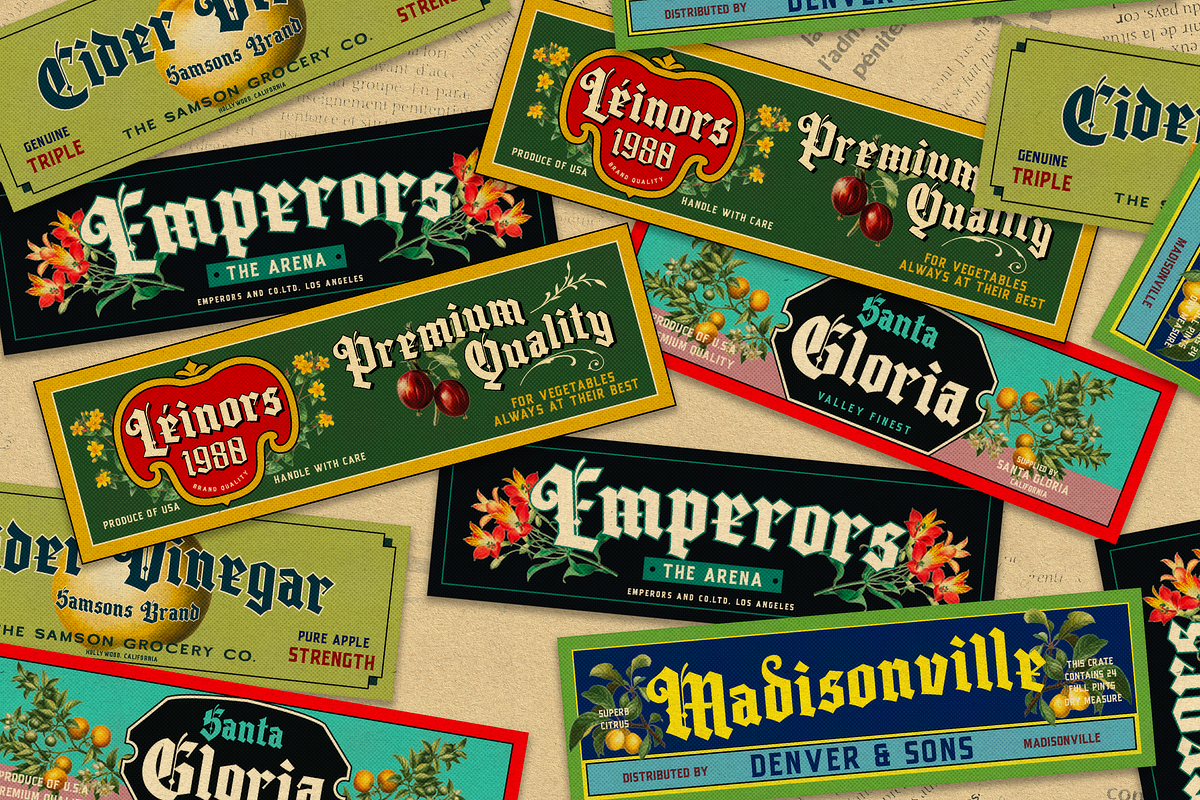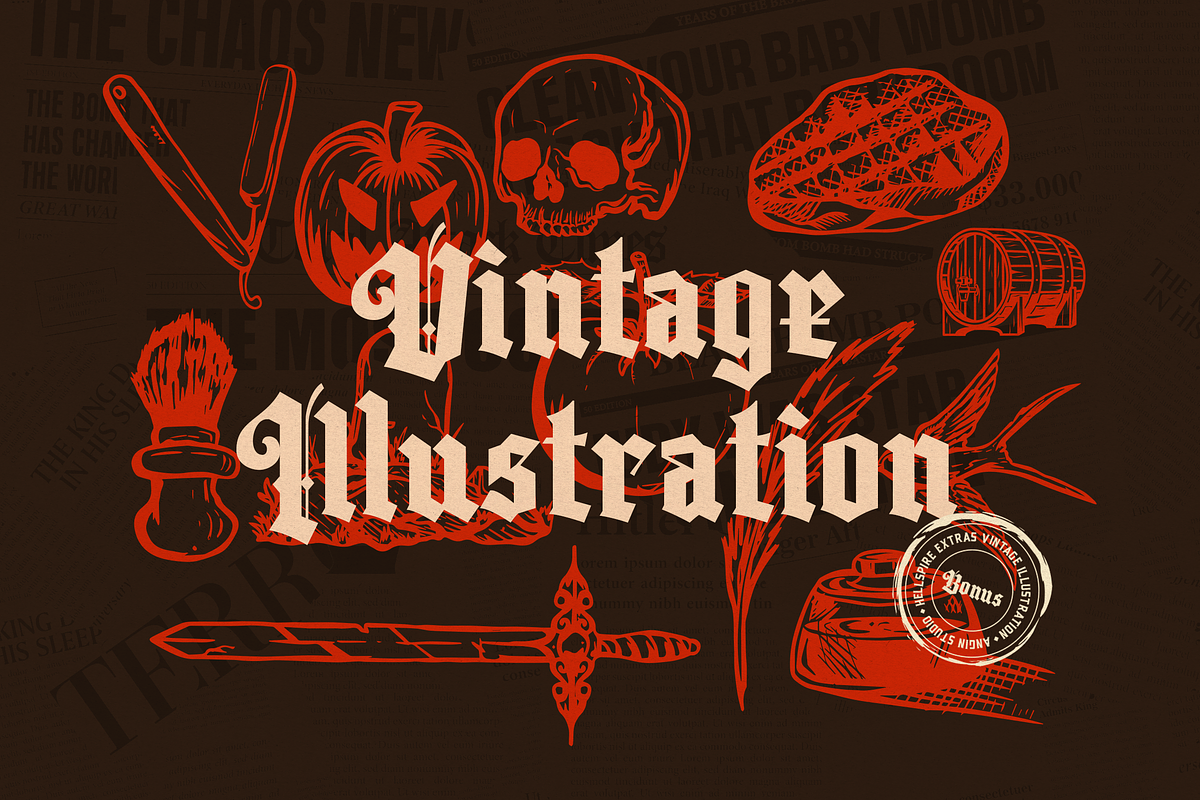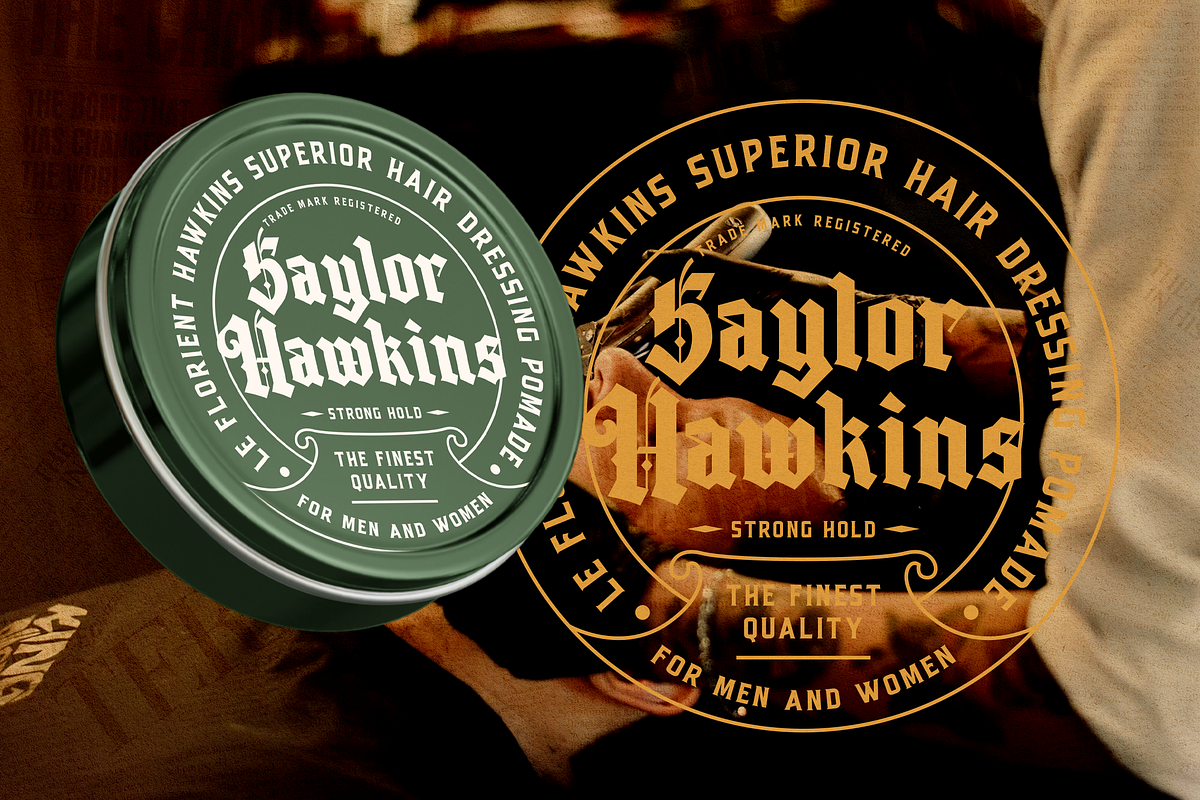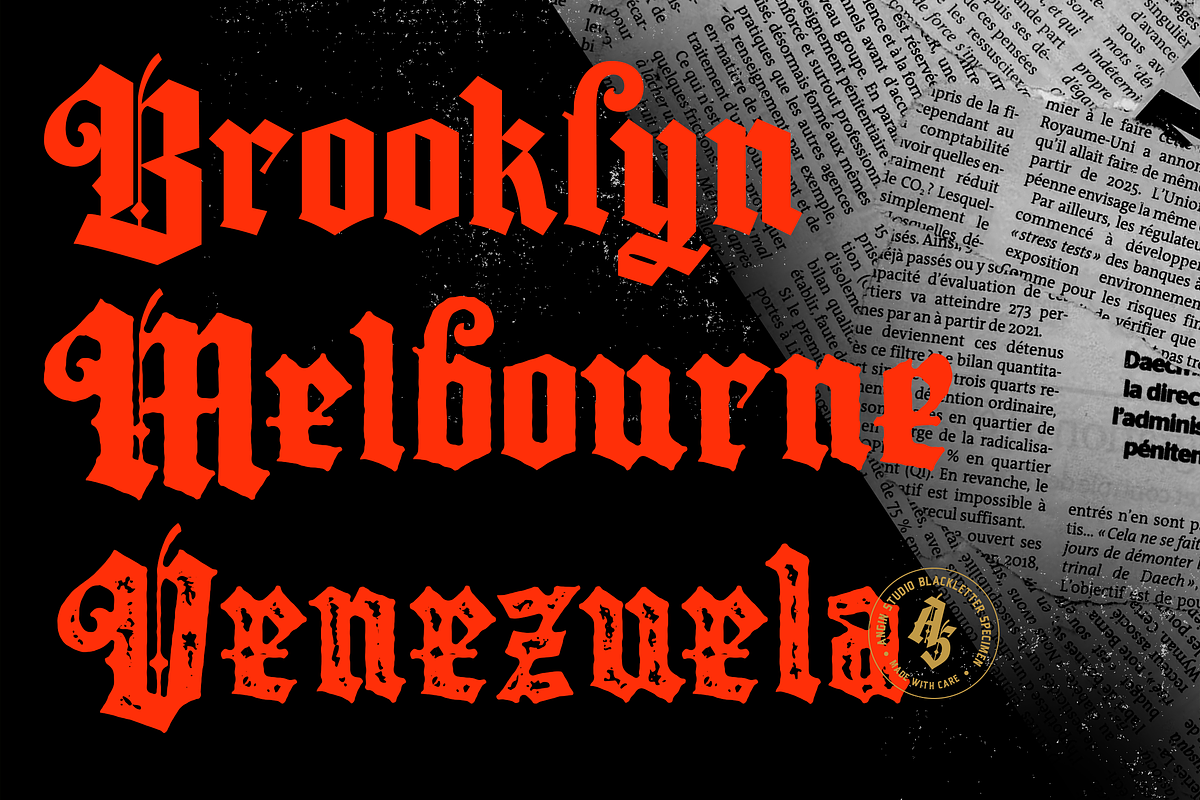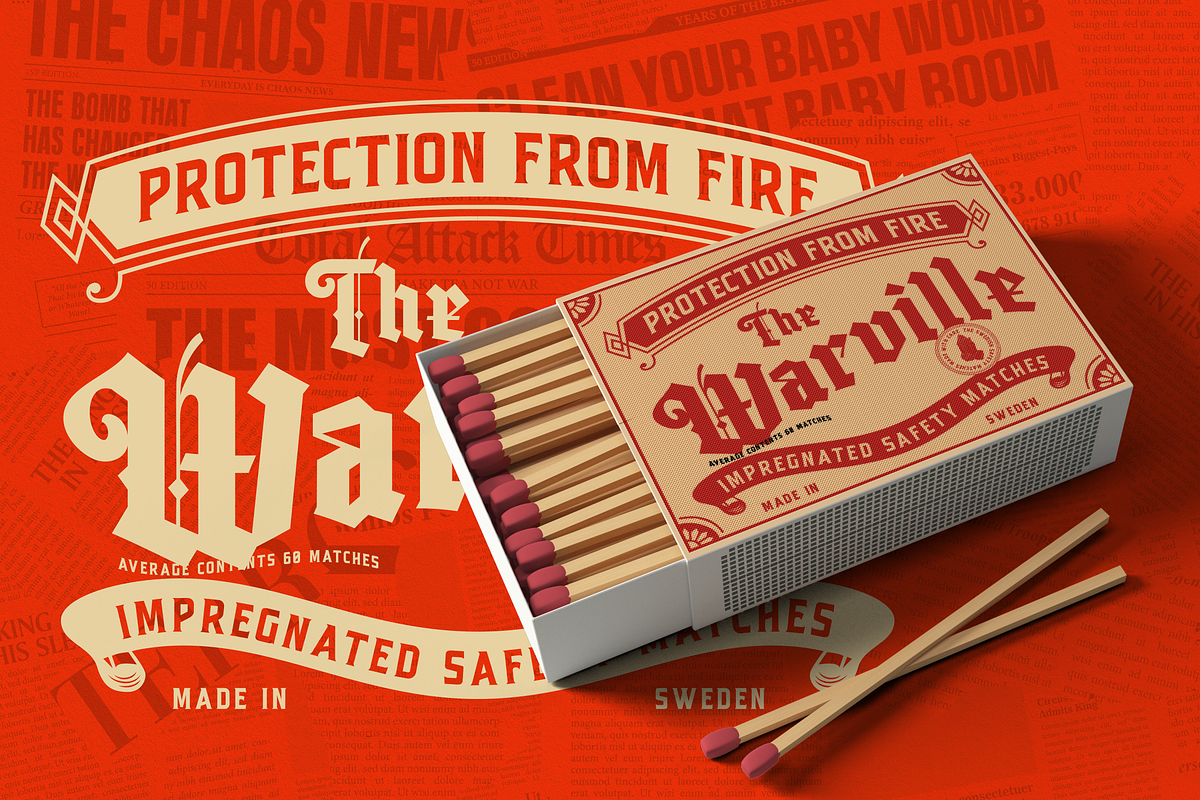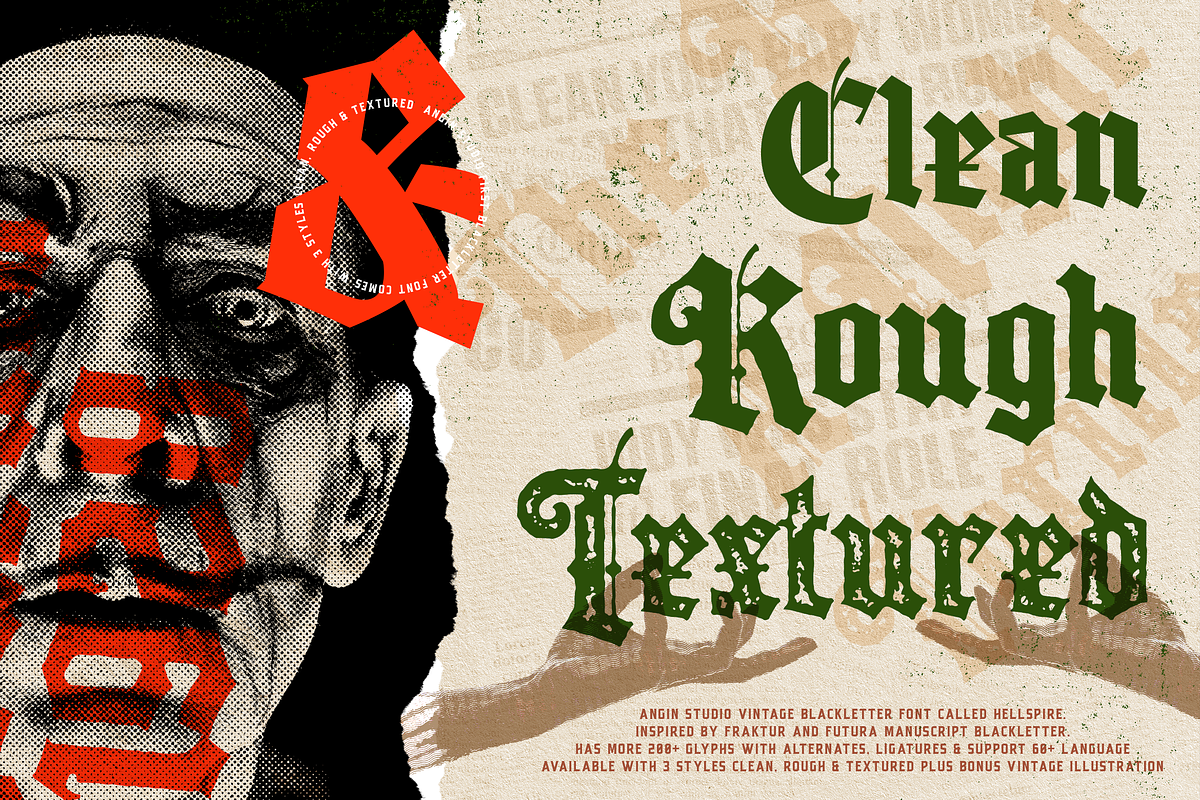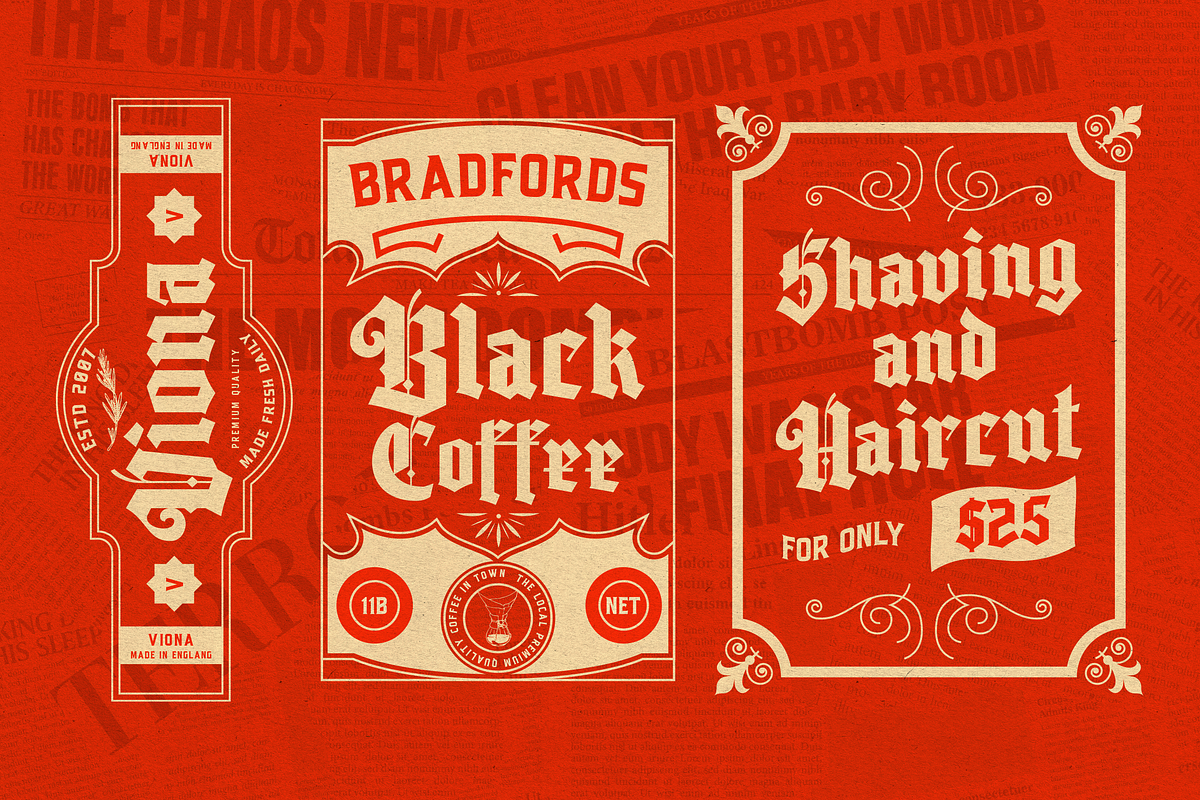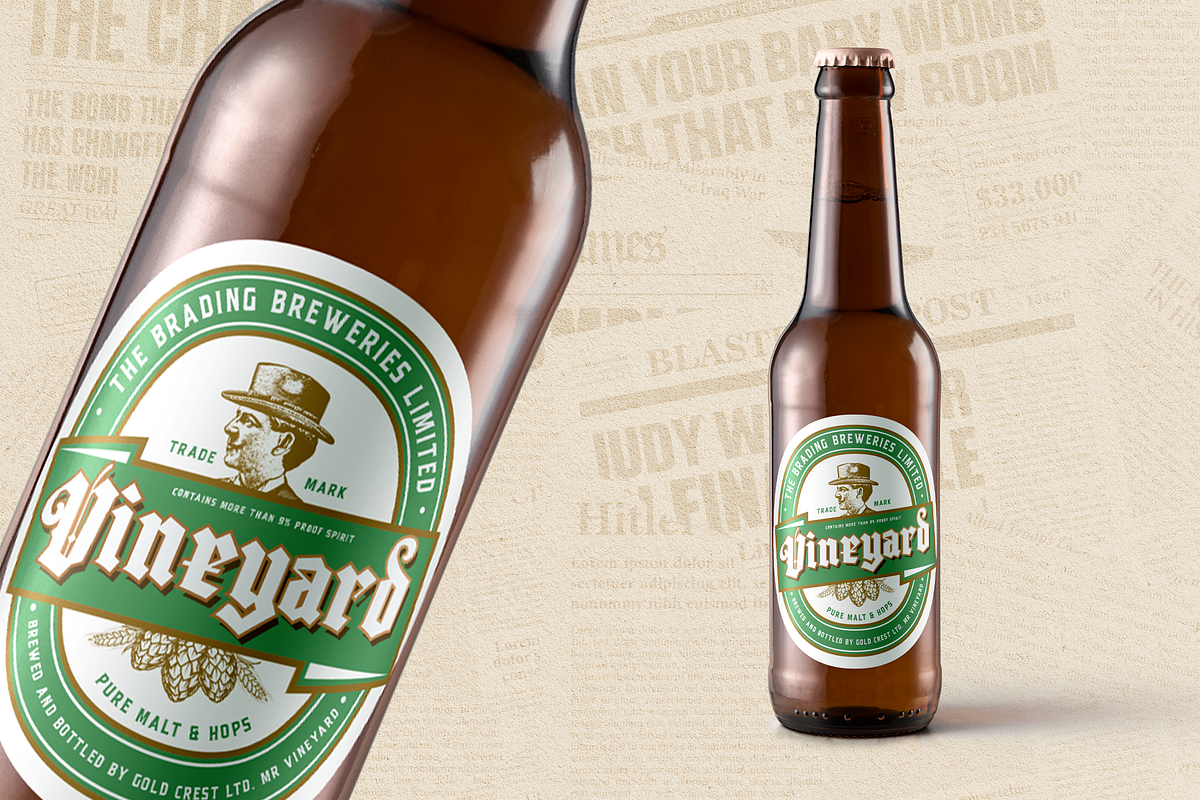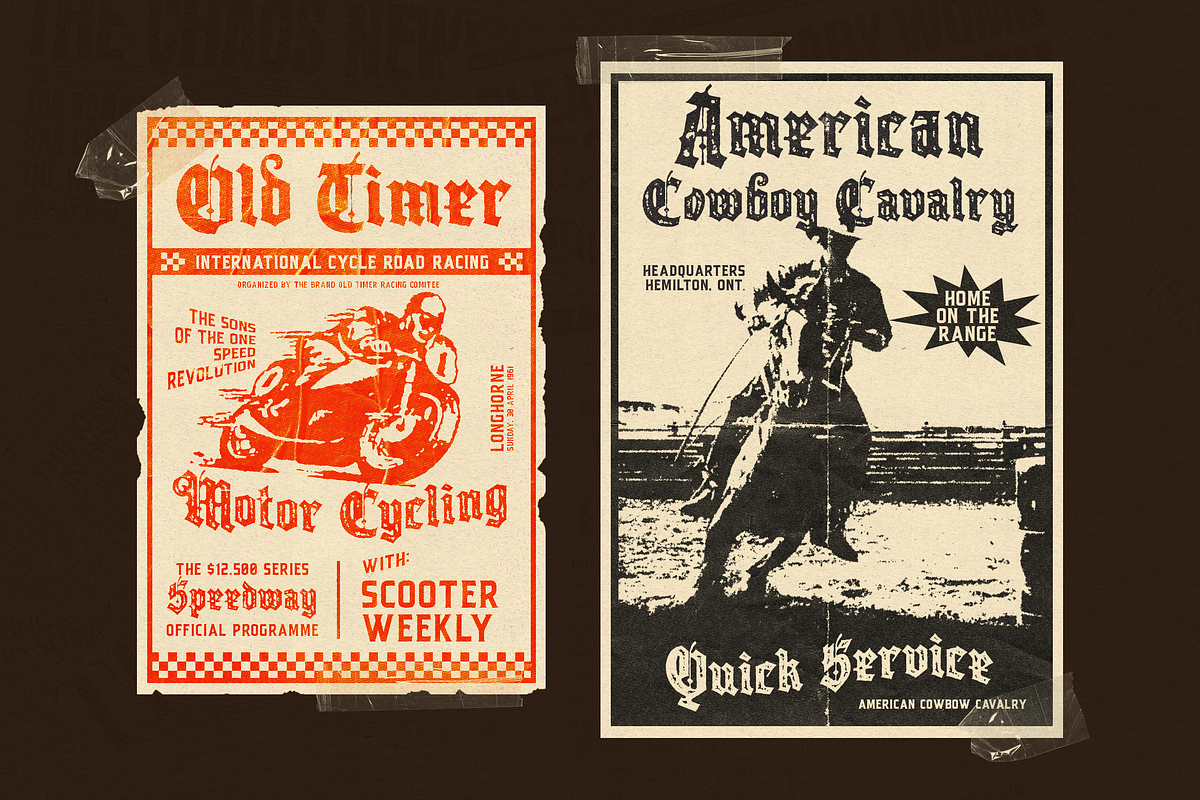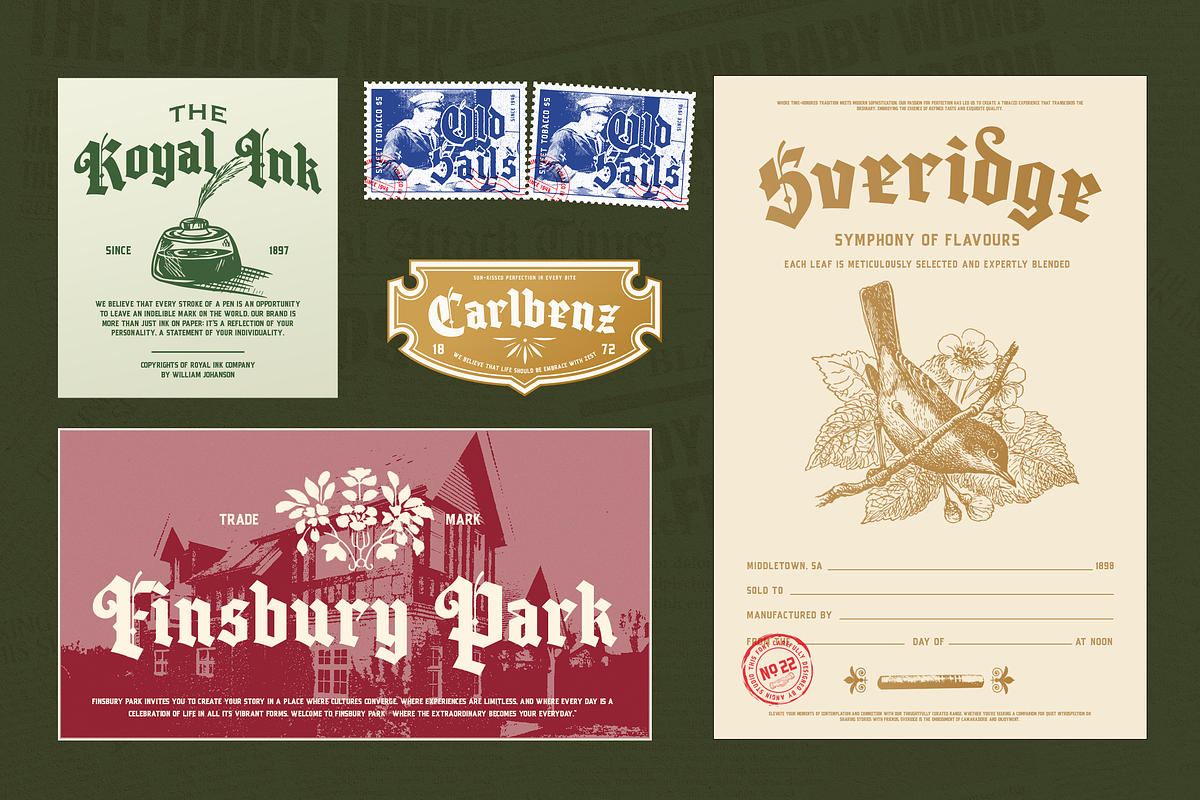
Hellspire Blackletter Fonts + Bonus
We are happy to tell you that our first Blackletter font has arrived. This font is inspired from our love to vintage fonts.
Let us Introduce you to "Hellspire" our first Blackletter font inspired by fraktur and textura manuscript that has been exist in Europe since 12th to the 16th centuries. Hellspire comes with 3 styles, but not only that, Hellspire also comes with a perfect paired serif fonts and a lovely vintage hand drawn illustrations.
This fonts is a perfect tool box for your vintage design project, a nice touch for you posters, packaging, book cover, labels, etc. The only limit is your imagination.
as you can see in the display, from our love to vintage packaging, labels, posters and ephemera, we created a perfect example on how this fonts will give a nice touch to those a vintage design. And as you know, thee limit is not in this font, the limit is how we use it.